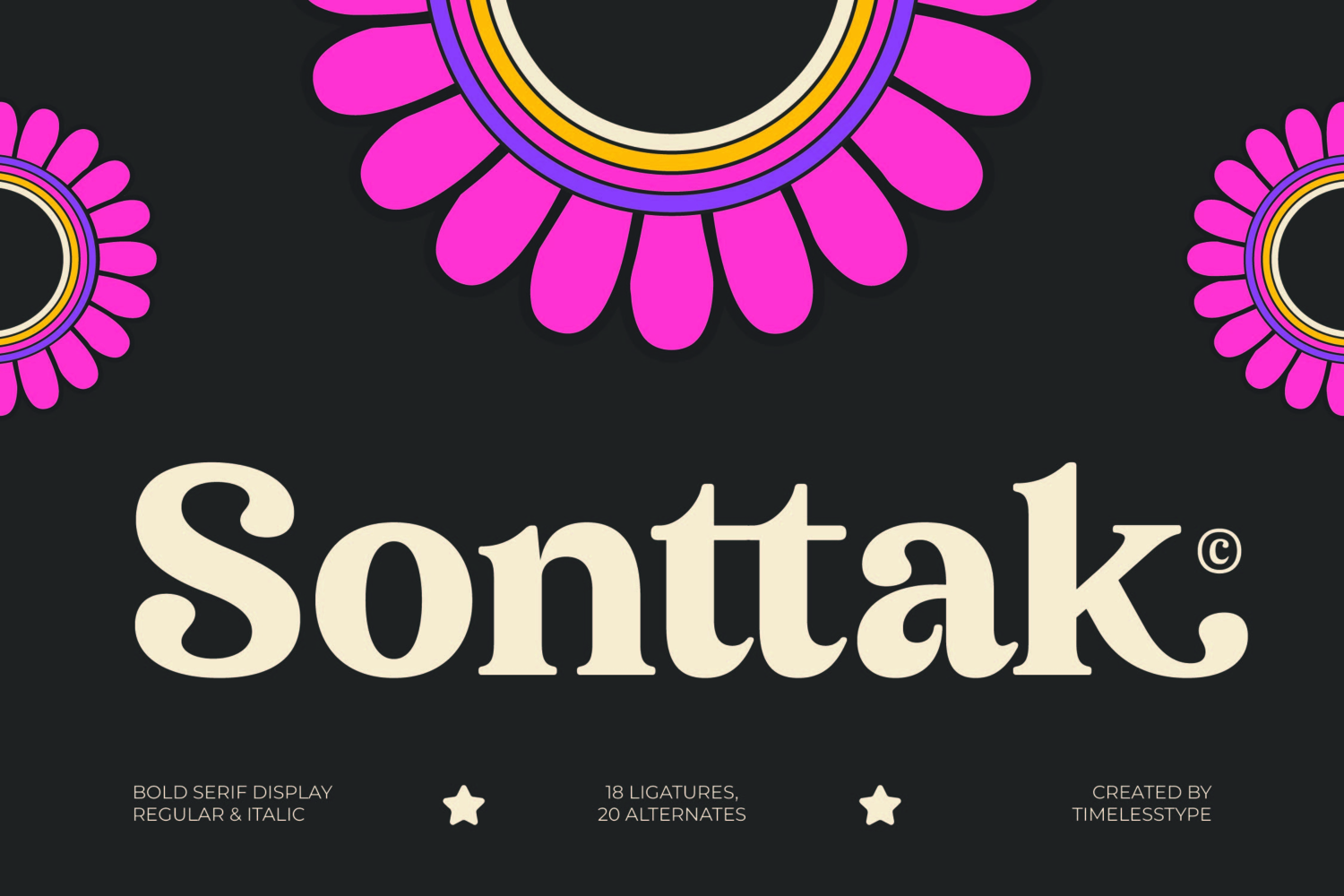
Sonttak - Bold Serif Display Font
Sonttak
Sonttak Italic
Unlock endless creative potential with sophisticated OpenType features designed for truly custom typography. Featuring 18 unique ligatures and 20 stylistic alternates, Sonttak - Bold Serif Display Font offers designers the tools necessary for fluid, engaging typesetting and dynamic lockups. With its extensive multilingual support, Sonttak - Bold Serif Display Font adapts seamlessly across global markets, making it incredibly versatile for international projects.